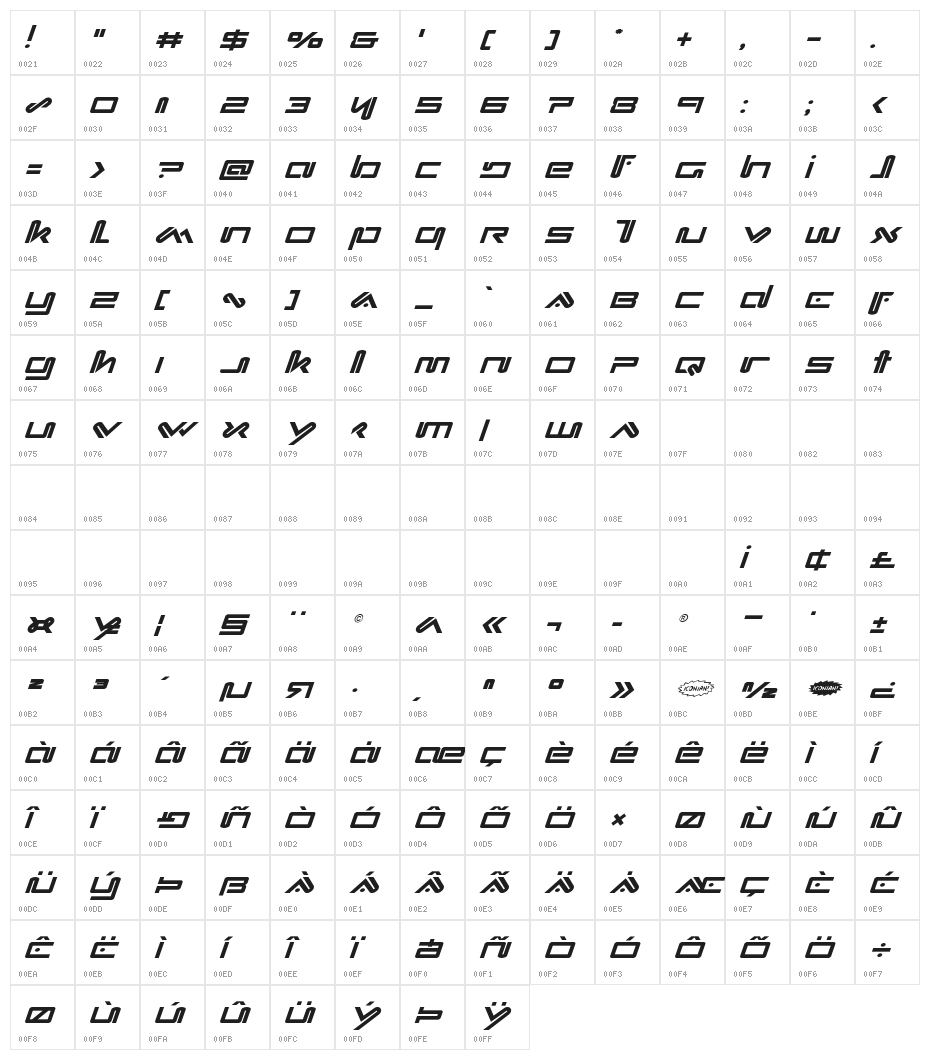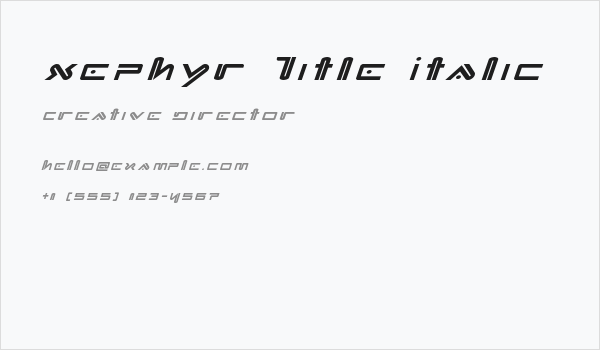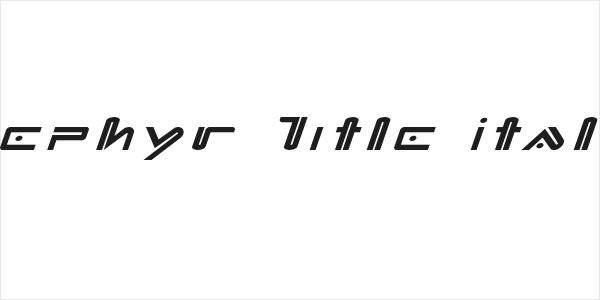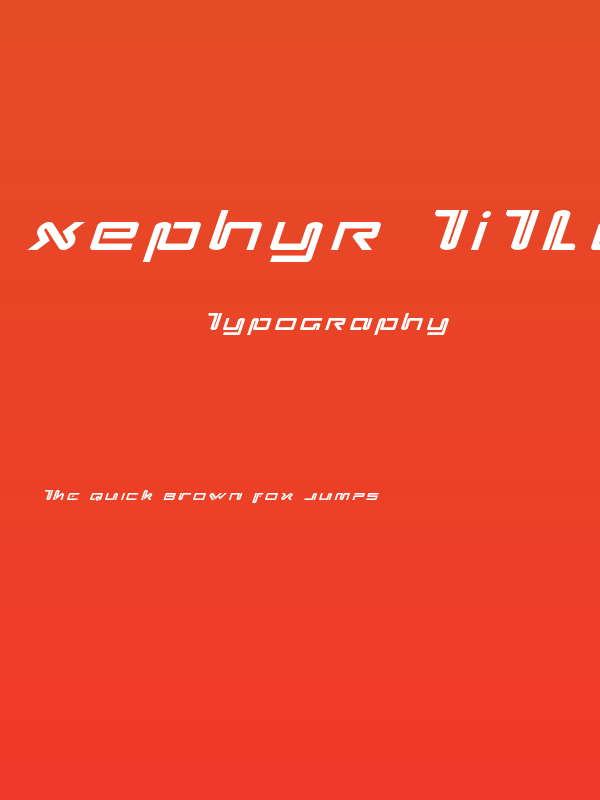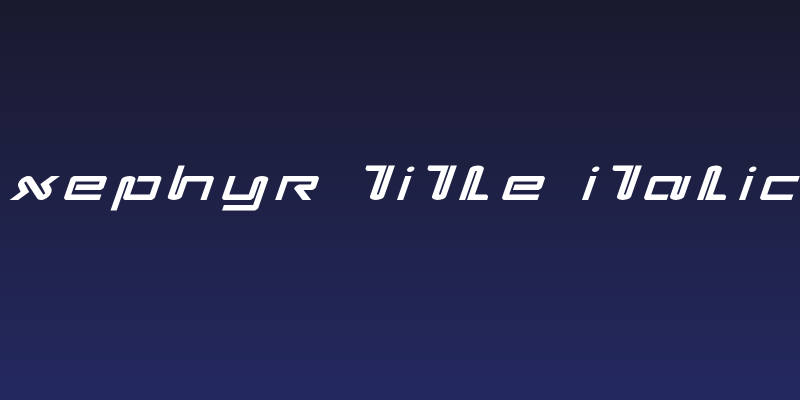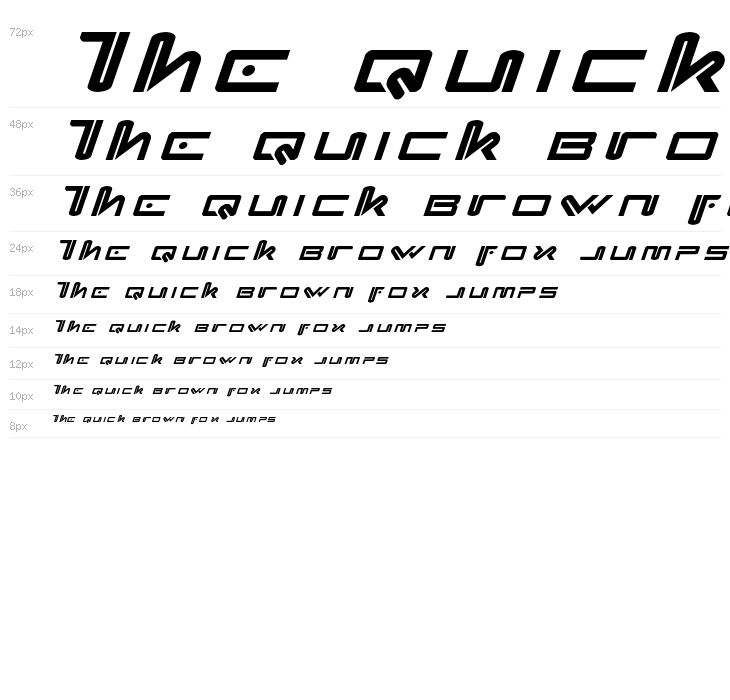
Xephyr Title Italic Font
Xephyr Title Italic Description
This font features a futuristic and angular design, characterized by its sharp edges and geometric shapes. The letters are italicized, giving a sense of motion and dynamism. The uppercase and lowercase letters maintain a consistent style, with unique cuts and angles that create a cohesive look. Numbers and special characters follow the same design principles, ensuring uniformity across all glyphs. The font's distinct style makes it suitable for projects that require a modern and edgy appearance.
| Proposed Projects | Ideal for sci-fi themed projects, tech branding, video game titles, and modern posters. |